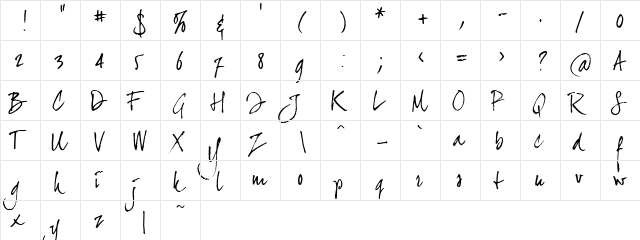
joeHand 2 Regular
Design Context for joeHand 2 Typeface
joeHand 2 flows with the natural rhythm of handwritten lettering, making it ideal for designs that call for warmth and personal expression.